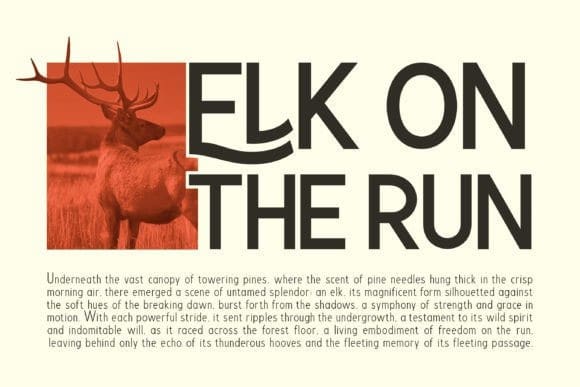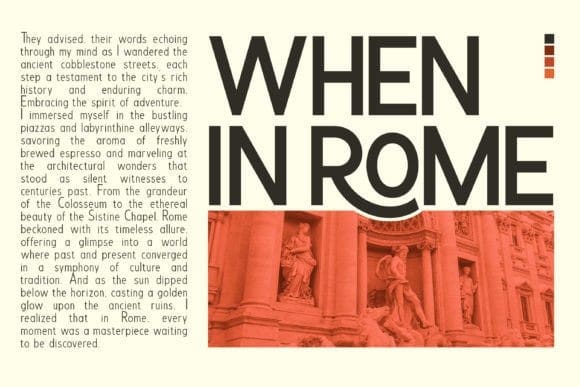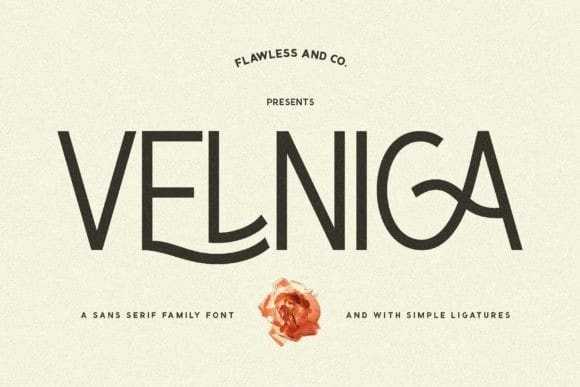
Velnica Font
Velnica Font, a sans-serif font family that exudes sophistication and style. With its clean lines, geometric shapes, and subtle stroke variations, Velnica is perfect for creating a modern and refined look for your branding, web design, and editorial projects. Velnica consists of various weights ranging from thin to black styles, including thin, extra light, light, regular, medium, semi-bold, bold, extra bold, and black.